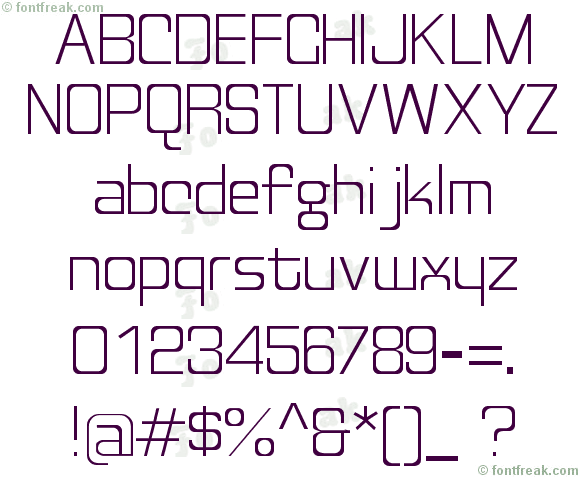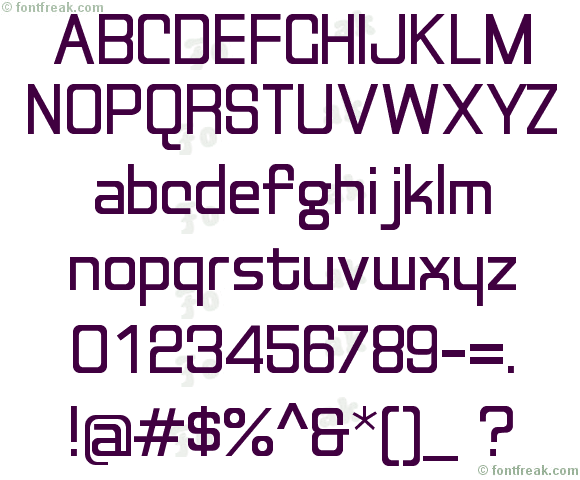
Discognate Light
Discognate
Discognate Light — Character Map
Discognate — Character Map
About Discognate
The Discognate font by Tepid Monkey Fonts is a striking display typeface that captures attention with its unique, modern aesthetic. This sans-serif font features a bold design characterized by its strong stroke weight and minimal contrast, making it an ideal choice for impactful headings and titles. The letterforms are well-spaced, contributing to legibility while maintaining a distinct visual presence. The geometric shapes and clean lines give Discognate a contemporary feel, making it suitable for a variety of applications.
Best used in settings that require a modern touch, the Discognate font excels in areas such as branding for tech startups, eye-catching movie posters, trendy restaurant menus, and stylish promotional materials. Its versatility makes it an excellent option for graphic designers looking to create visually compelling projects, as well as small business owners who want to establish a memorable brand identity. Content creators will also find Discognate to be a fantastic choice for digital graphics, social media posts, and website design, where a contemporary flair is desired.
What truly sets Discognate apart is its ability to blend modern design sensibilities with practical functionality. The font's strong visual impact and versatility make it a standout choice for anyone seeking a typeface that can elevate their work. Whether used in print or digital formats, Discognate is sure to leave a lasting impression.